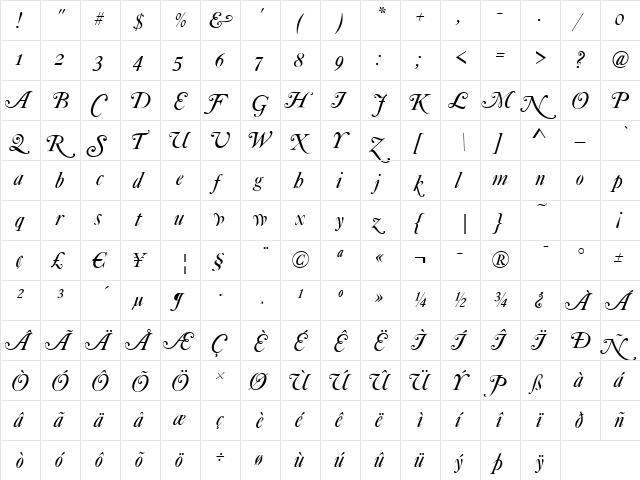
Caslon-Elegant-Swash Italic
Design Context for Caslon-Elegant-Swash Typeface
Caslon-Elegant-Swash brings a calligraphic fluidity to the page — its connecting strokes and expressive curves give it an unmistakably human quality.
Font Pairing: Combine Caslon-Elegant-Swash with a simple geometric sans for maximum contrast — the tension between flowing curves and clean structure is a classic typographic pairing.
Pro Tip: Use Caslon-Elegant-Swash for short runs of text — names, titles, or taglines. Extended body copy in script faces tires the eye quickly.